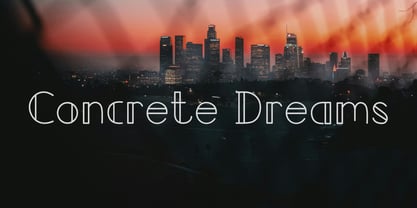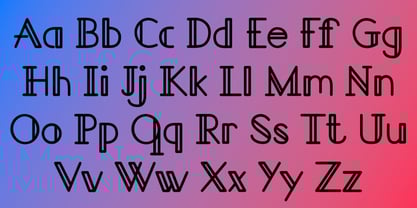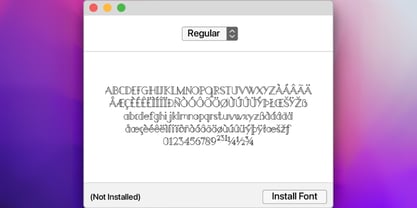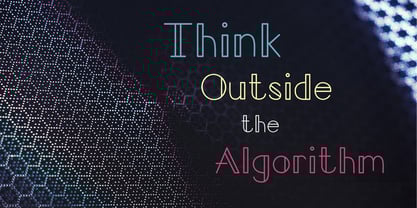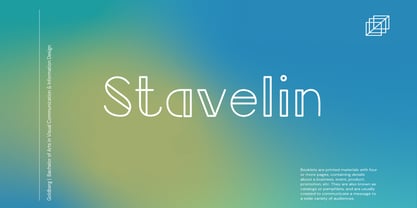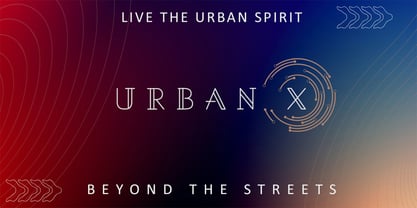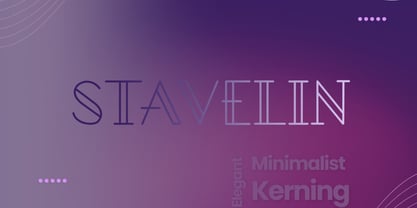
Stavelin
by Sopheynoft
The Stavelin Font Family was designed by Yoseph Junaidi and published by Sopheynoft. Stavelin contains 2 styles and family package options.
Stavelin is a modern sans-serif font with a clean and versatile design. Crafted with balanced proportions and smooth letterforms, it offers excellent readability while maintaining a professional and elegant look. Perfect for both digital and print use, Stavelin adapts seamlessly to a wide range of creative projects.
This typeface includes Regular and Bold styles, giving you flexibility to create strong headlines, stylish logos, and clear body text. With its minimalist yet refined character, Stavelin works beautifully for branding, editorial layouts, packaging, social media, and web design.
With its open counters and smooth flow, the Stavelin typeface is perfect for branding, posters, digital interfaces, or editorial layouts, offering versatility without sacrificing personality. Whether used in bold headlines or refined text compositions, the Stavelin font delivers a polished and innovative touch, making it an ideal choice for designers seeking a fresh and sophisticated look.
Designers: Yoseph Junaidi
Publisher: Sopheynoft
Foundry: Sopheynoft
Design Owner: Sopheynoft